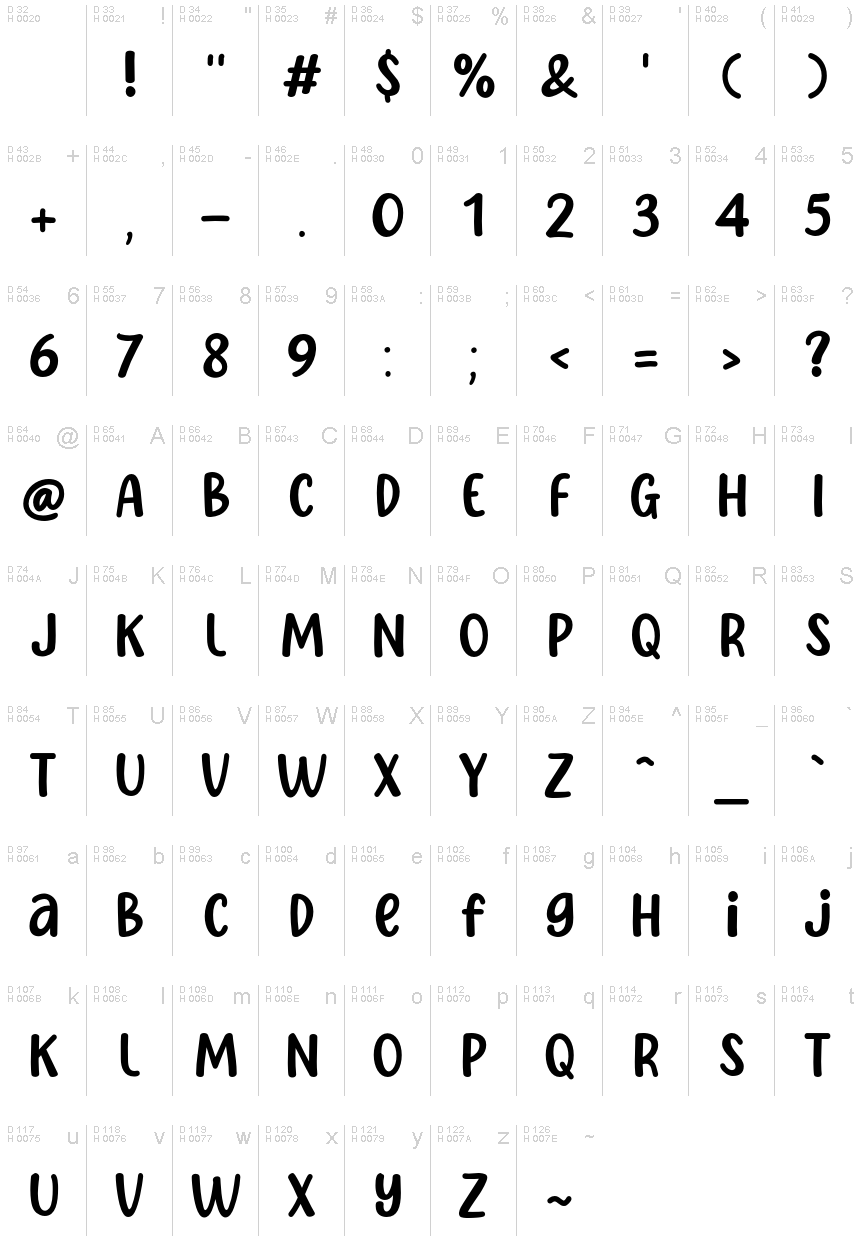
Happy Paradise font by MJType is a condensed cartoon display font with rounded forms and friendly appearance. The modern aesthetic typeface has an approachable mood and casual style, one that works perfectly in designs intended almost exclusively for kids.
Places where this free display font might fit best are posters, invitations, brochures, coloring books covers or any cover page of fun books. If schools or classrooms need some redecorating with new wall art, Happy Paradise can be of great help. Use it further to create gift cards, digital presentations on apps such as PowerPoint, social media posts to engage users etc.